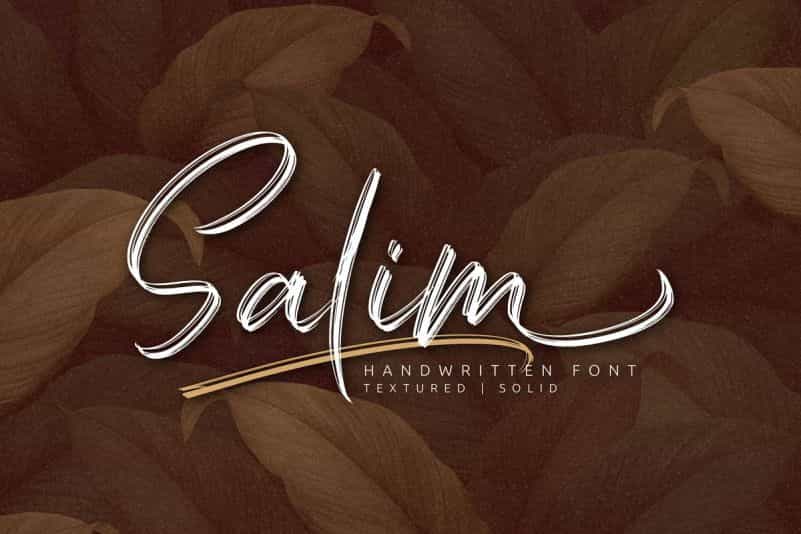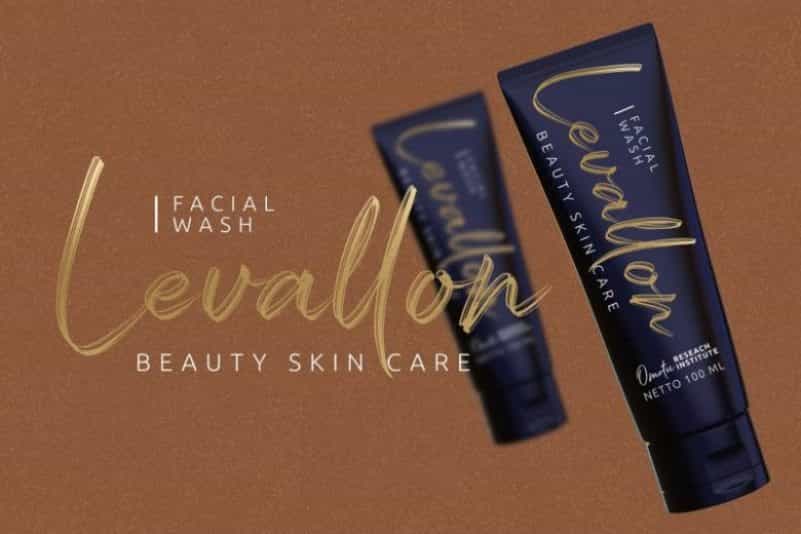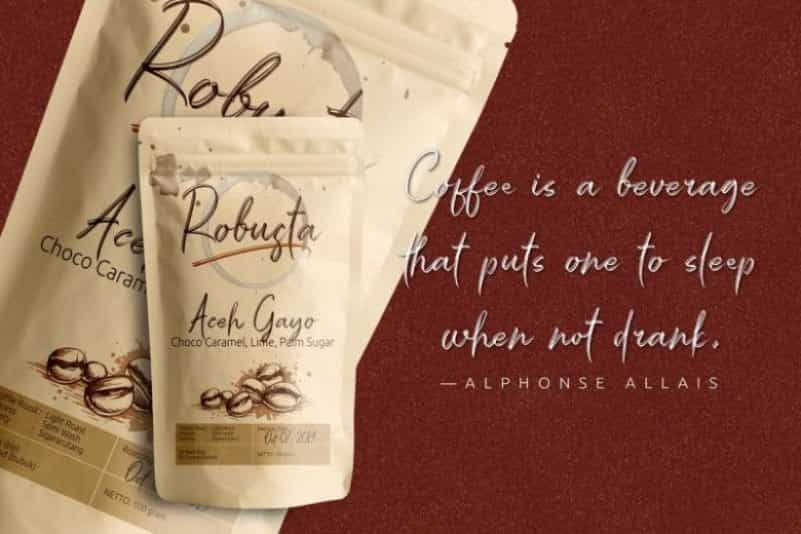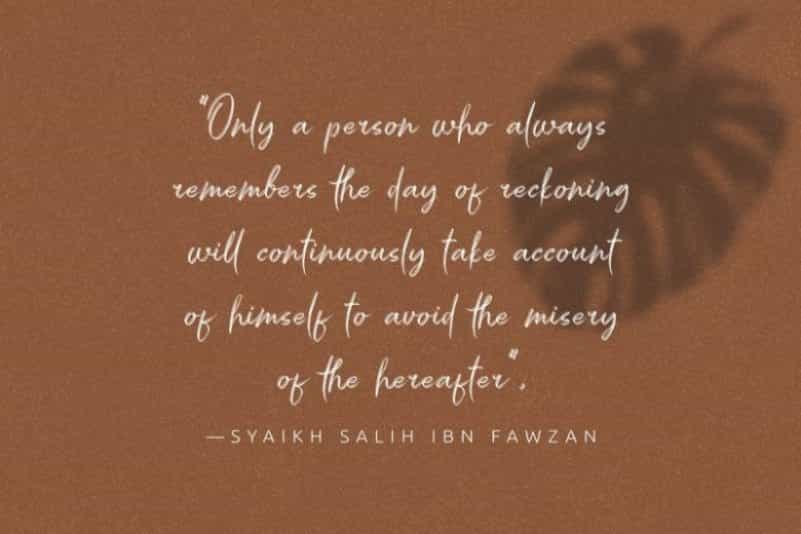
Discover Salim Brush Font, part of the Brush collection—a versatile and unique font perfect for adding a personal touch to your projects. Download it for free and enjoy crafting designs with style, from invitations to social media posts. This font is available exclusively for personal use, giving you the freedom to create without limits. Unlock your creativity with Salim Brush Font today!
Introducing Salim Font. It is a handwritten brush font with two styles: brush texture and solid. Salim Brush suitable to use for prints, logos, logos & branding, invitations, stationery, wedding designs, social media posts, advertisements, product packaging, product designs, labels, photography, watermark, special events or anything due to its unique flow and style.